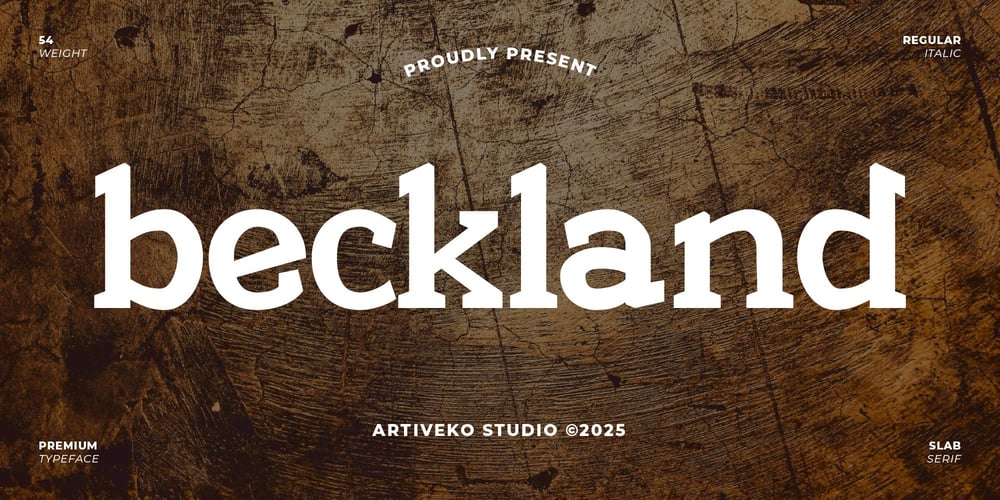
Beckland
Beckland font
Beckland Font Family was designed by Iwan Alwan and published by Artiveko. Beckland contains 18 styles and family package options. Beckland is a vintage serif font designed with classic elegance and timeless charm. Inspired by old-world typography, it features refined serifs and balanced letterforms, making it perfect for branding, packaging, book covers, and editorial design. With multilingual support, ligatures, and alternates, Beckland brings a nostalgic yet sophisticated touch, ideal for projects that seek a vintage yet stylish aesthetic.